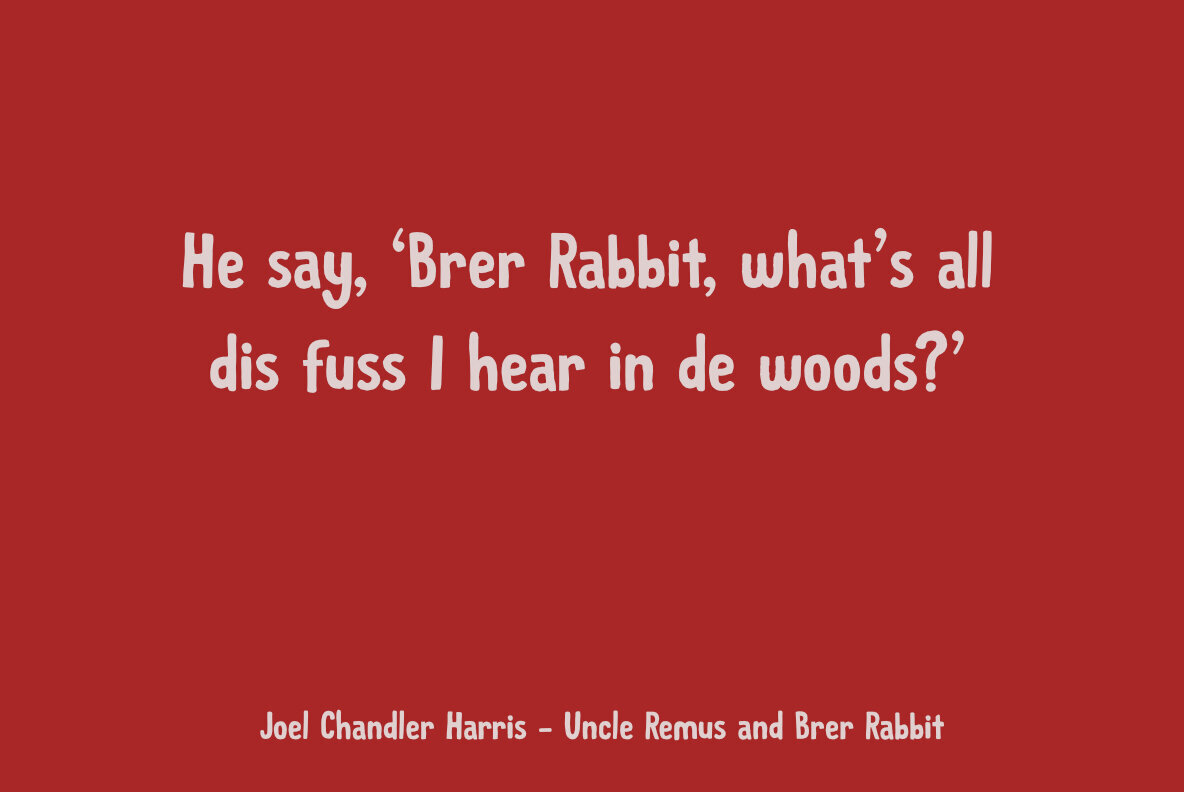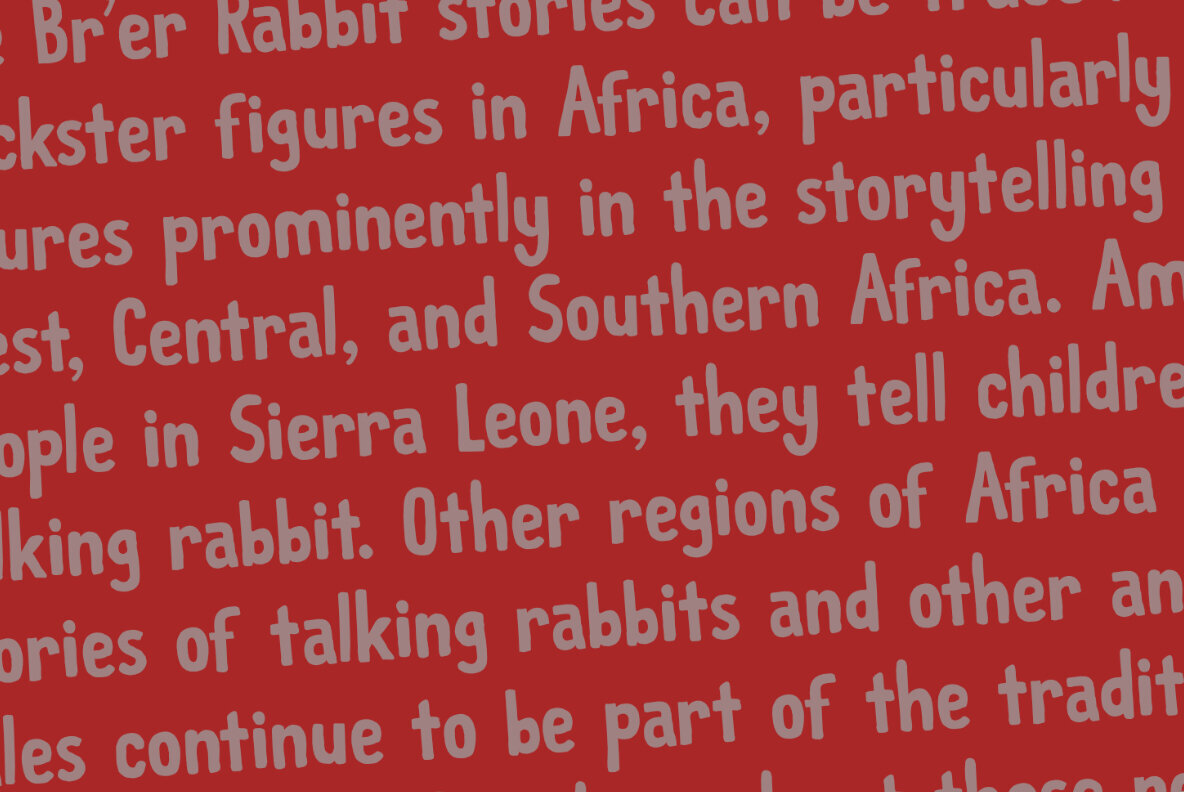
Brer Rabbit Font
Brer Rabbit captures the essence of a beloved folklore character, serving as an emblem of creativity and mischief. This children's book typeface, inspired by the tales passed down through African-American oral tradition, brings the whimsical charm of Brother Rabbit to life, a character akin to Anansi the spider from African stories. This font, developed from the earlier design Rabbit On The Moon, infuses playful elements into storytelling and design. Brer Rabbit includes broad language support and features a delightful alternative asterisk glyph in the likeness of the character himself.Brer Rabbit: A Playful Children's Book Typeface